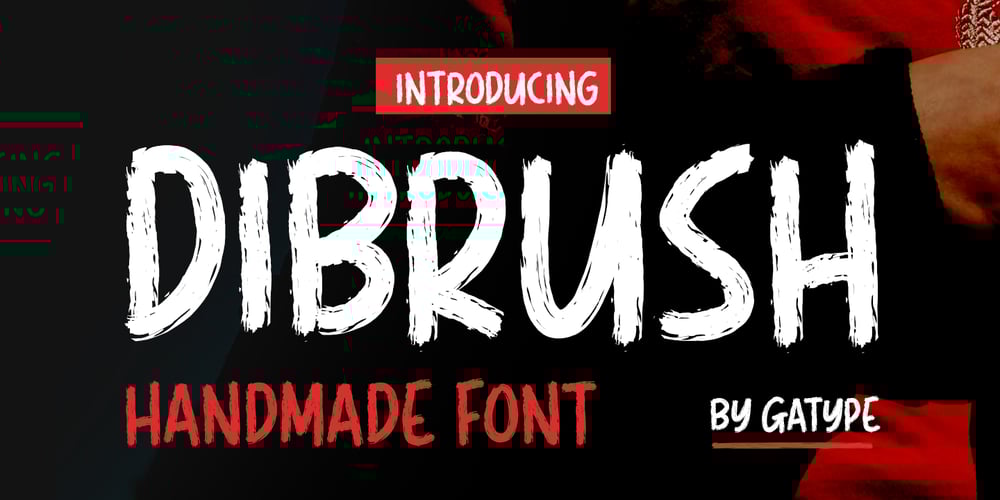
Dibrush Font Family was designed by khaidir and published by Gatype. Dibrush contains 1 styles and family package options. Dibrush is a Handwritten Display font characterized by a single-line stroke with consistent thickness throughout. It offers an elegant, modern, and relaxed feel, making it a great choice for various design projects such as branding, logos, invitations, packaging, and social media.